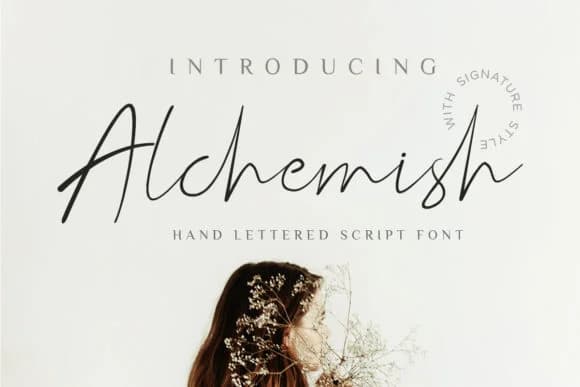
This feels like watching someone write you a note by hand, each letter carrying intention and care. Alchemish Script Font, designed by SayStudio, captures that irreplaceable handwritten quality in a contemporary form that works beautifully across everything from luxury brand identity to custom stationery projects.
The light, flowing letterforms maintain legibility while staying personal and expressive. You'll find it perfectly suited for wedding invitation suites where every typographic detail matters, high-end product labels for boutique skincare and artisanal candle brands, hand-lettered menus for specialty coffee and tea shops, and custom greeting cards that feel genuinely crafted. The script carries enough personality to stand out on smaller applications while remaining readable when set at body size. It strikes that rare balance between casual authenticity and refined elegance, feeling approachable without ever becoming frivolous or dated.
The magic of this script is that it never overreaches. It complements a design rather than overwhelming it, which is exactly what brands working in premium categories need. Pair it with a clean, geometric sans-serif for body copy and longer passages, letting the script lead where impact matters most. Grab it from Creative Fabrica and bring that hand-crafted warmth to your next design.
Alchemish Script Font is a script font that shines as a display or heading face. Pair it with a clean sans-serif or serif font for body text — the contrast creates a clear hierarchy while the two styles stay balanced and easy to read.